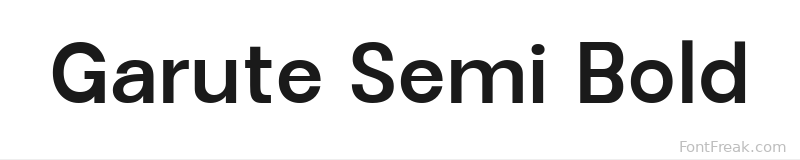
Garute Medium
Garute Bold
Garute Regular
Garute Semi Bold
Garute Light
Garute Black
Garute Extra Bold
Garute Medium by MJType is a contemporary sans-serif font that epitomizes modern design sensibilities. Released in 2023, this freeware typeface is characterized by its balanced stroke weight and clean lines, making it versatile for a range of applications. The font features a medium weight that strikes a perfect balance between bold and light, ensuring readability without sacrificing style. Its well-defined letterforms exhibit minimal contrast, which contributes to a cohesive and harmonious appearance, while spacious letter spacing enhances legibility across various platforms.
Garute Medium is ideal for a multitude of use cases, making it particularly appealing for graphic designers and small business owners. It excels in creating striking headlines for websites and digital marketing materials, thanks to its modern aesthetic. Additionally, the font is perfect for restaurant menus, giving a contemporary flair to food presentations. Wedding invitations benefit from its elegant simplicity, ensuring that the text remains clear yet stylish. Movie posters can utilize Garute Medium for impactful titles and taglines, capturing attention while maintaining a professional look.
Content creators will find this font an excellent choice for social media graphics, where clarity and style are paramount. Its versatility caters to a broad audience, making it an attractive option for anyone looking to elevate their visual presence.